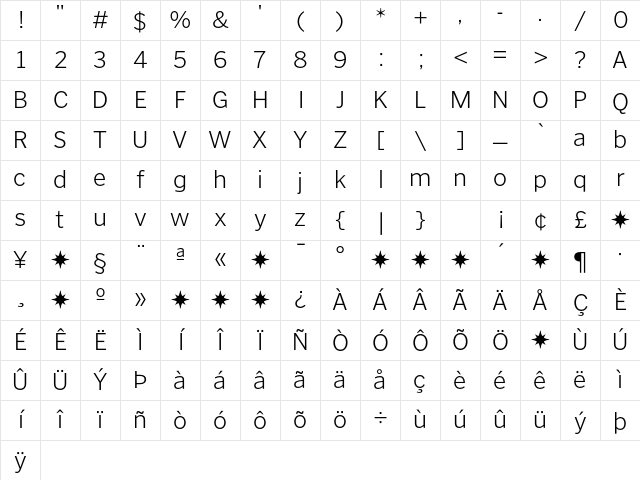
Complete PoynterText SansLight glyph index. Displaying only characters natively supported by PoynterText SansLight font.
PoynterText is a composed and adaptable typeface that performs quietly and consistently across a wide range of design contexts. Its slender proportions lend an understated elegance to any composition.